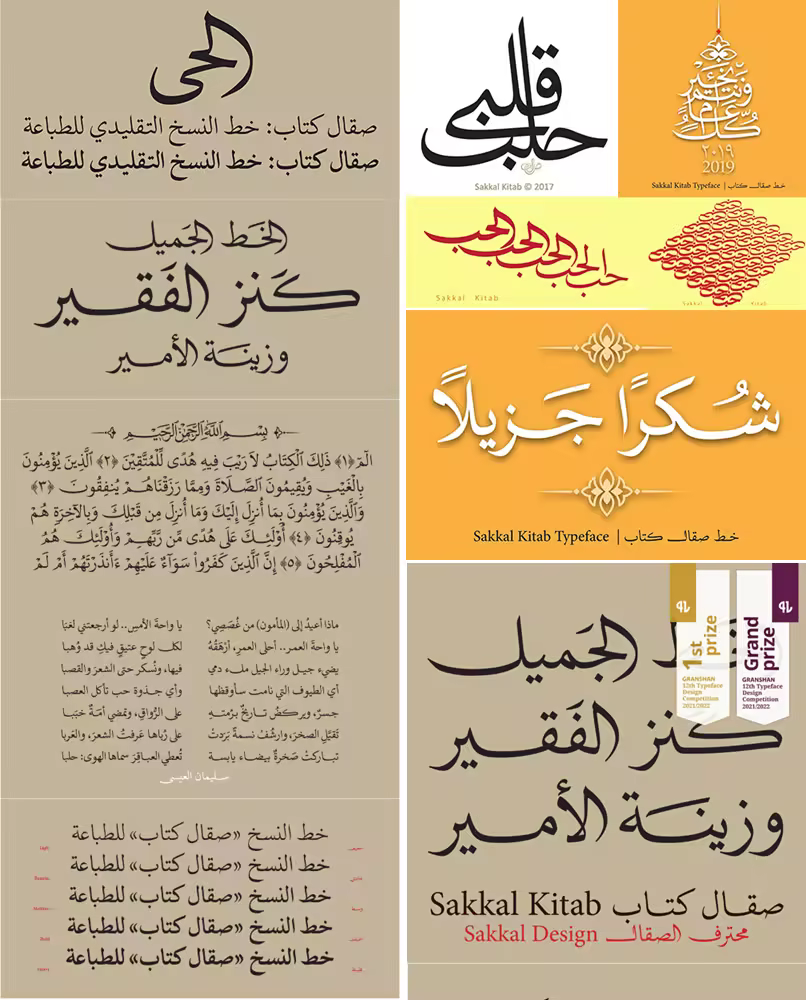
Sakkal Kitab is an exquisite traditional Naskh typeface that preserves the elegance and beauty of calligraphic Arabic. Sakkal Kitab, ‘kitab’ meaning ‘book’, is drawn in a contemporary fashion while managing to seamlessly marry heritage with present-day aesthetics. The calligraphic mastery and skill of the exemplar letterforms has been beautifully carried into the digital fonts with remarkable grace and aplomb.
The first version of Sakkal Kitab was designed between 2015 and 2017 by Dr. Mamoun Sakkal and Aida Sakkal, and licensed to Amazon for use in its Kindle Arabic books in two weights. The first version had 1,002 glyphs. After updating and expanding with numerous additions and improvements, the font now has 2,356 glyphs. The current version is a new release offered to the public for the first time through Sakkal.com and exclusively through ILoveTypography.com.
Sakkal Kitab Arabic typeface family received First Prize for Arabic text typefaces and Grand Prize in Granshan's 12th Typeface Design Competition 2021/2022. To learn more about Sakkal Kitab's features, please click the BROCHURE link below.